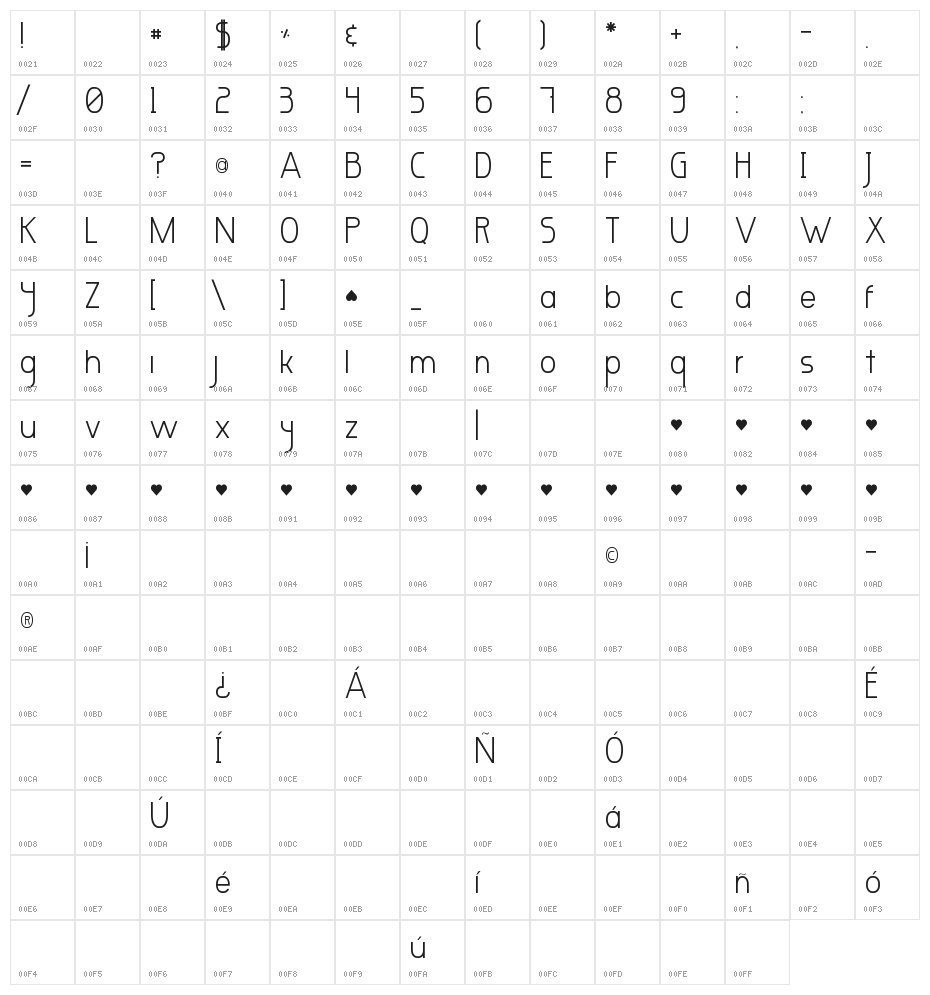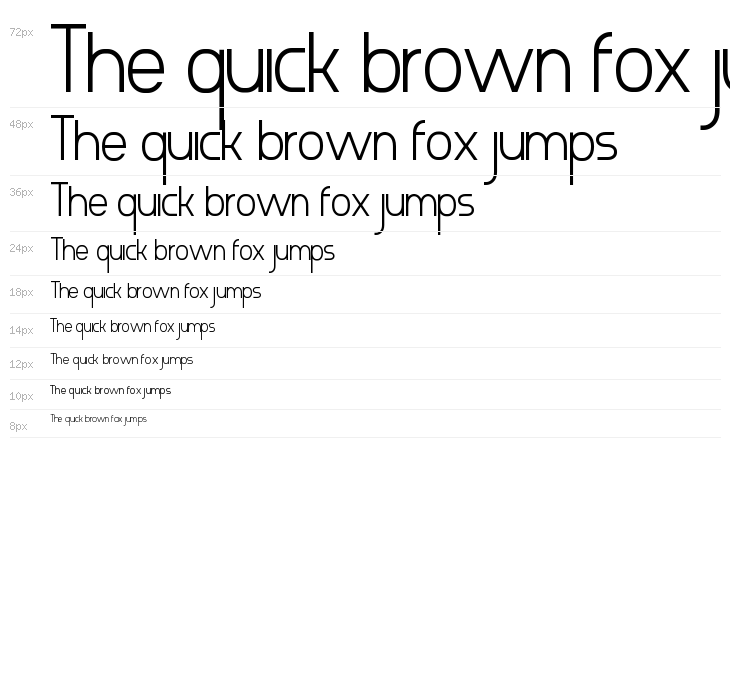
Marcelita Sans Font
Marcelita Sans Description
This font features a clean and modern sans-serif design with a geometric structure. The characters are uniform in width, providing a balanced and harmonious appearance. The uppercase letters are tall and elegant, while the lowercase letters maintain a consistent height, enhancing readability. The numerals are distinct and clear, making them suitable for various applications. Special characters are designed with the same geometric precision, ensuring a cohesive look across all text elements. The font's simplicity and clarity make it versatile for both digital and print media.